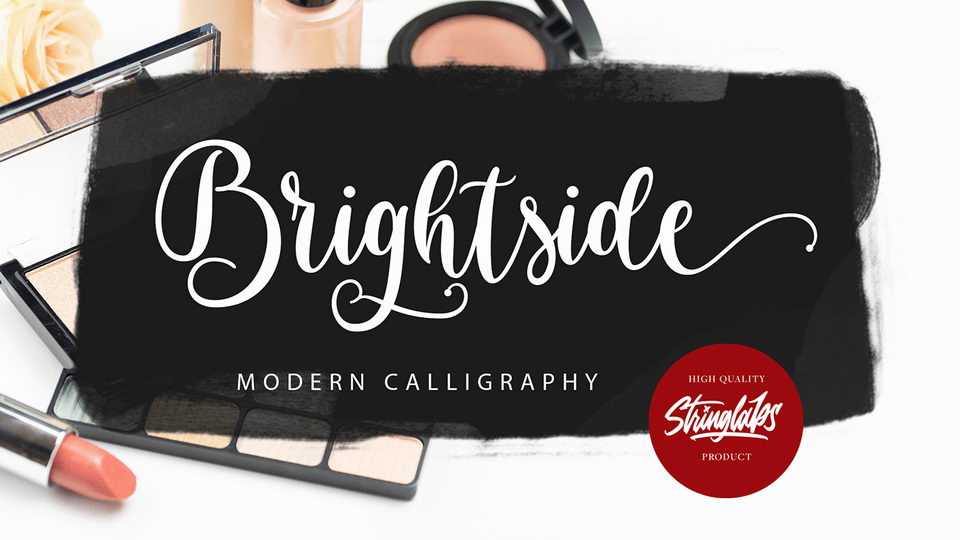
Download Brightside font, a beautiful modern handwritten typeface with features gorgeous swashes and ligatures that make this script incredibly versatile.